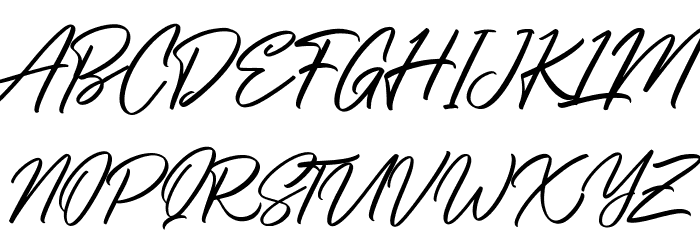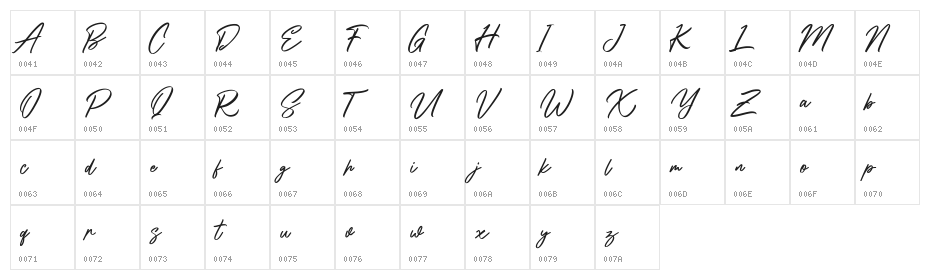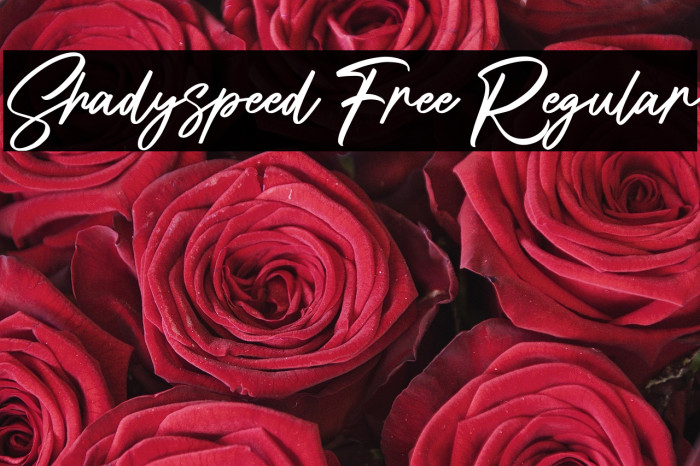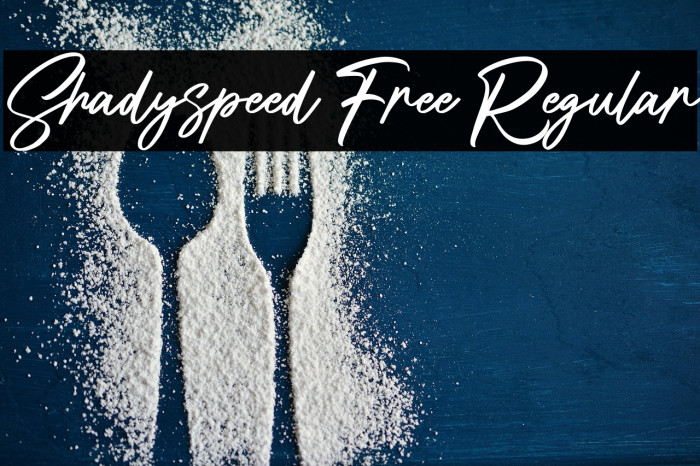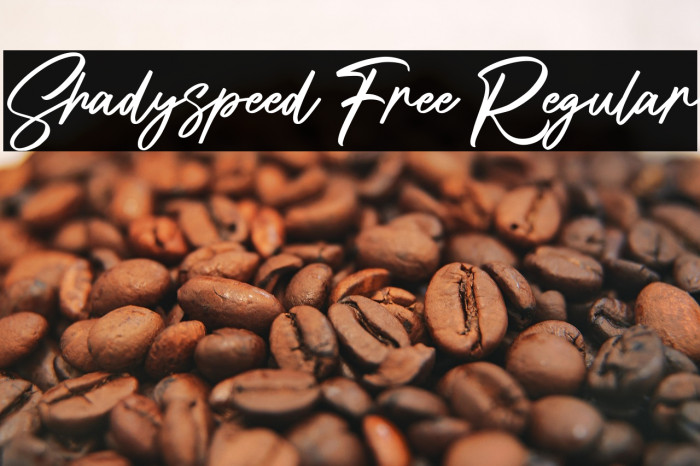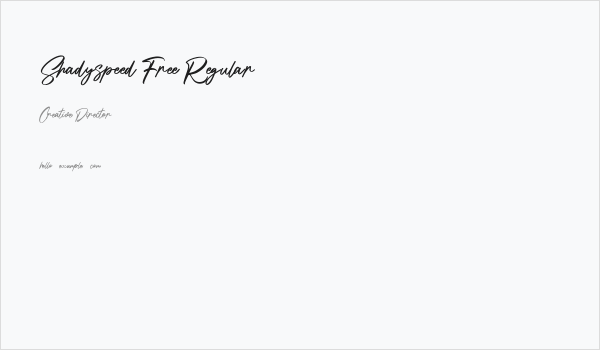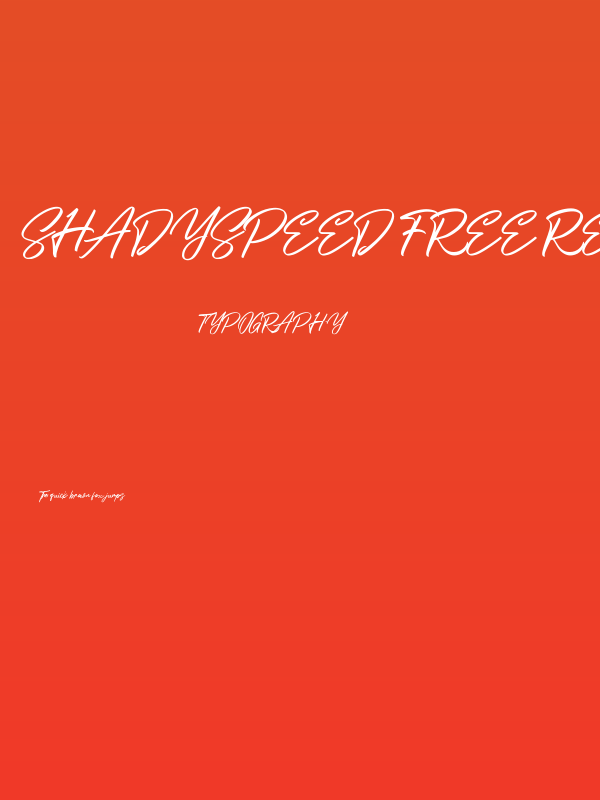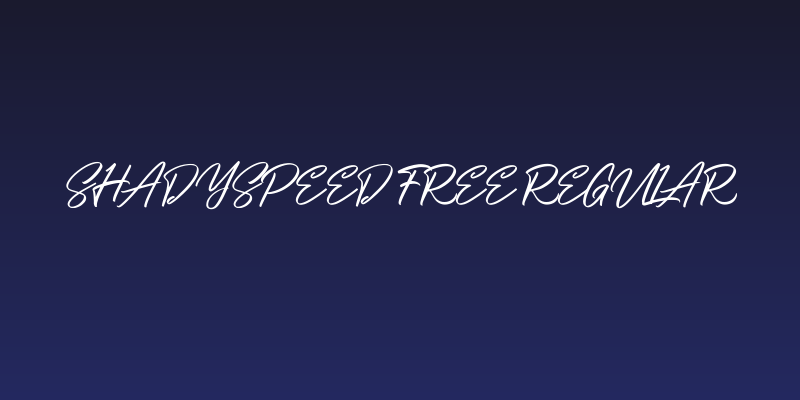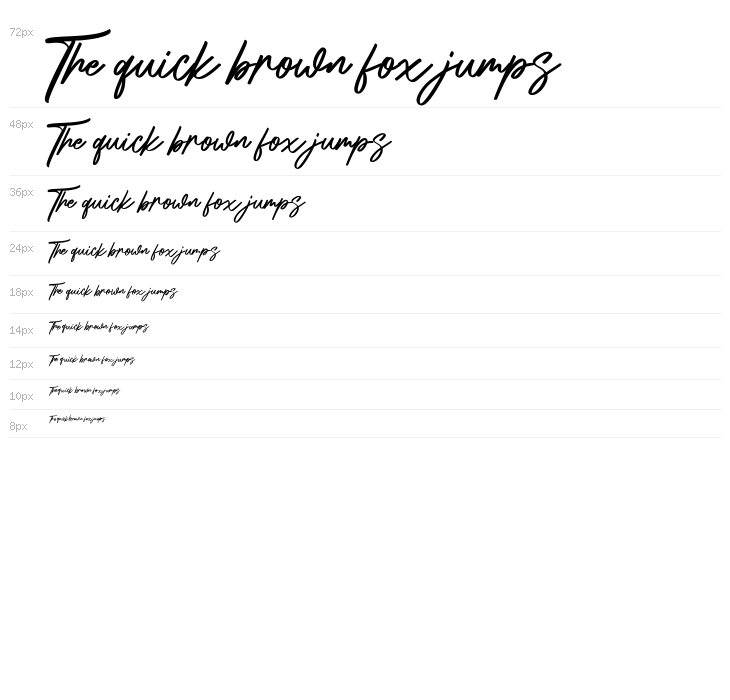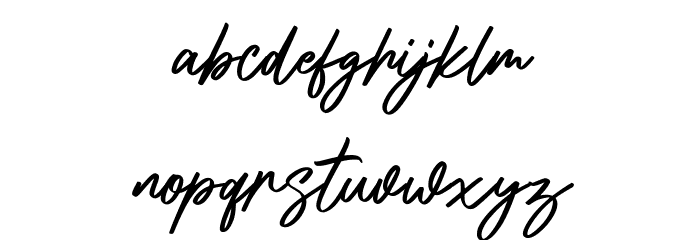
Shadyspeed Free Regular Font
Shadyspeed Free Regular Description
This font features a dynamic and fluid script style, characterized by its elegant and flowing letterforms. The uppercase and lowercase letters exhibit a consistent slant, enhancing the sense of movement and grace. The strokes are smooth and connected, giving it a handwritten appearance that is both stylish and sophisticated. The font maintains a uniform thickness throughout, providing a balanced and harmonious look. It is well-suited for projects that require a personal touch, such as invitations, greeting cards, and branding materials. The overall design is modern yet timeless, making it versatile for various applications.
| Proposed Projects | Ideal for wedding invitations, personal branding, greeting cards, and elegant logos. |